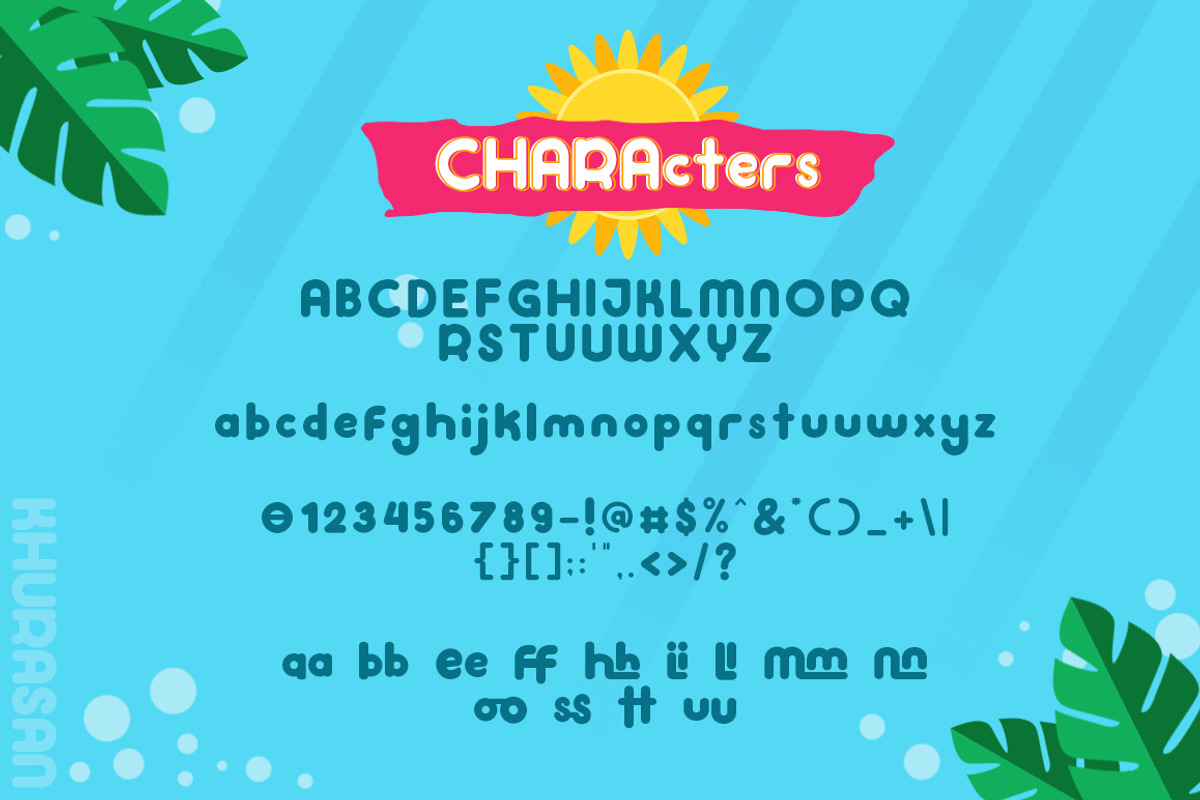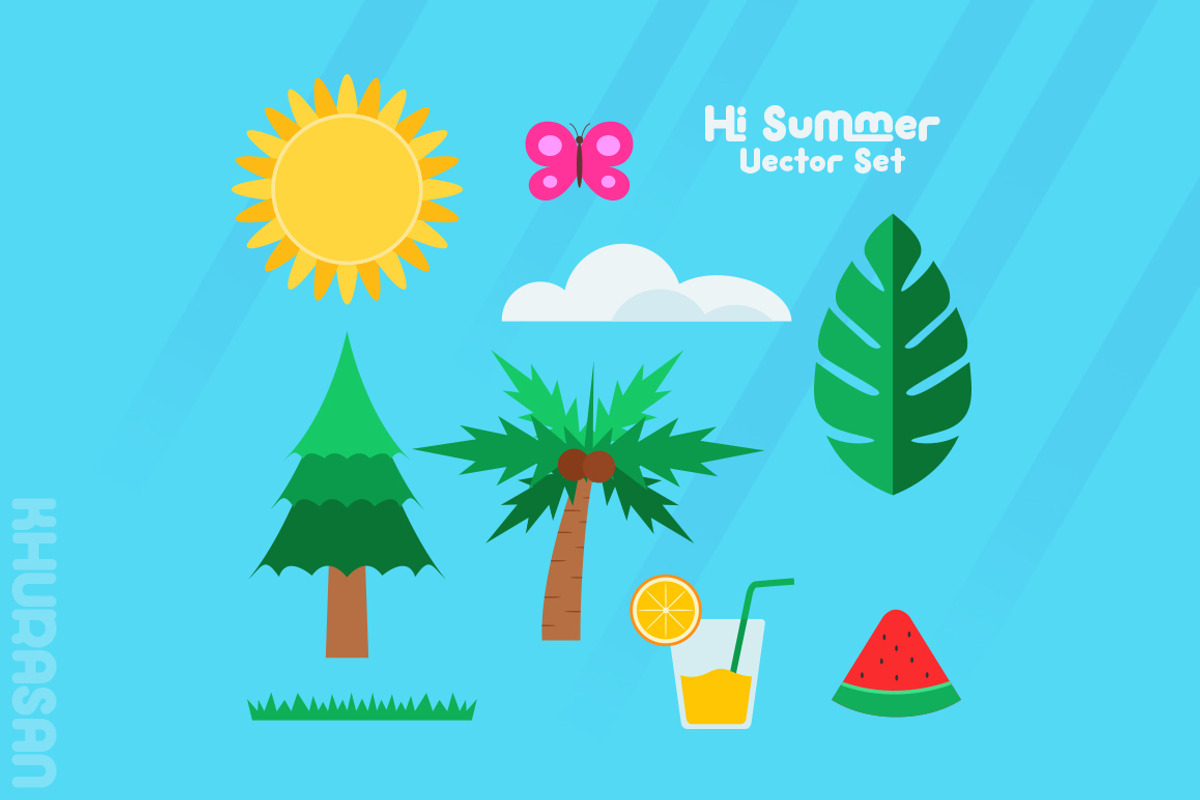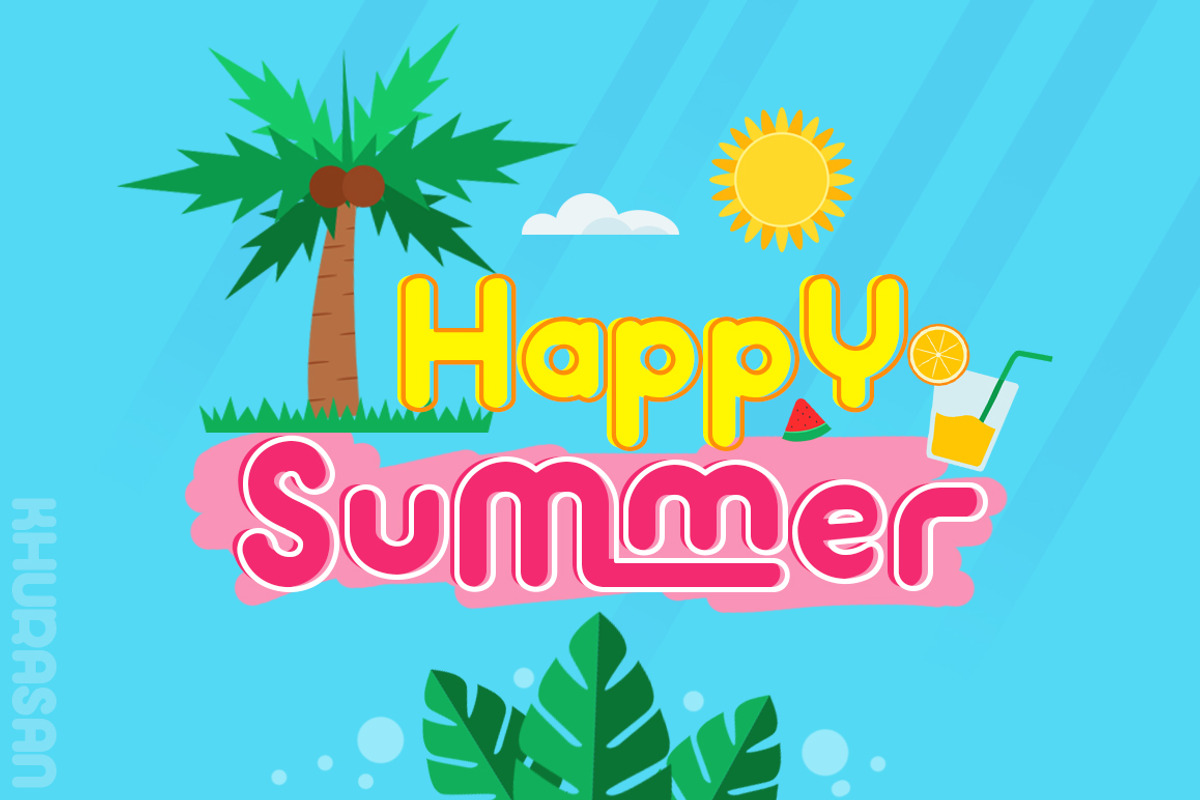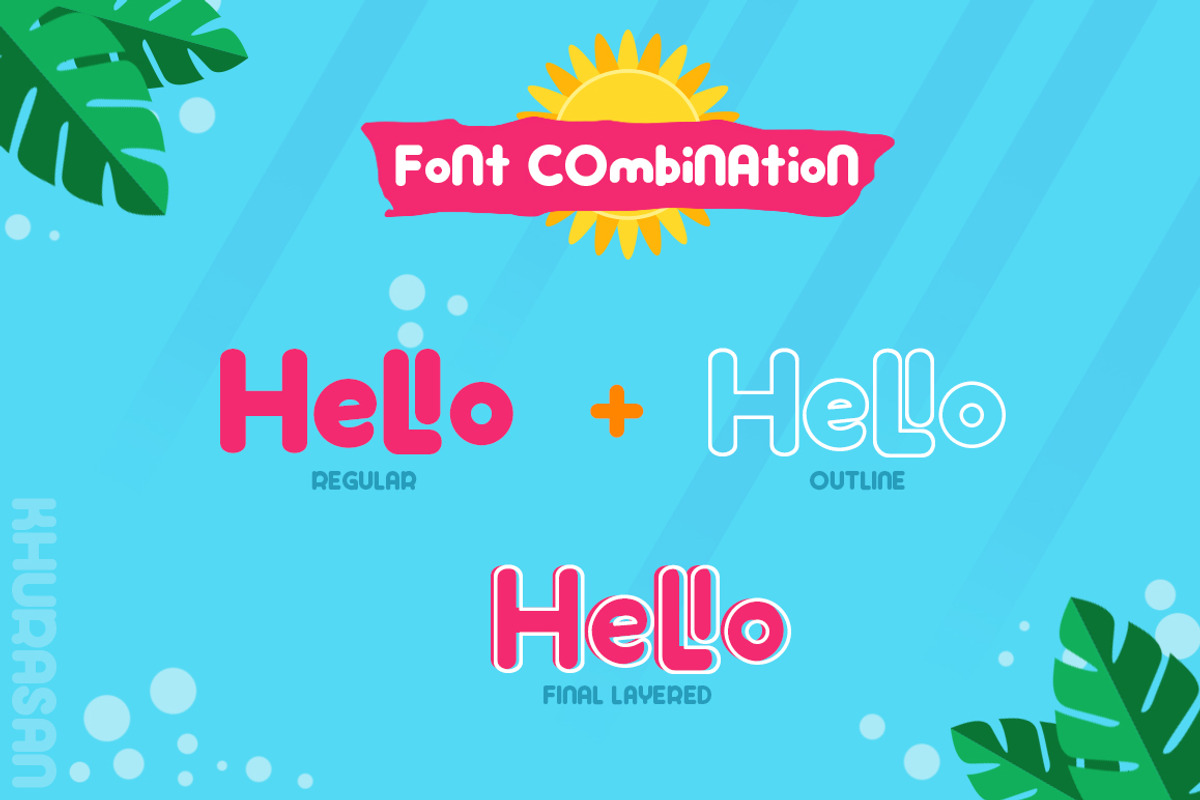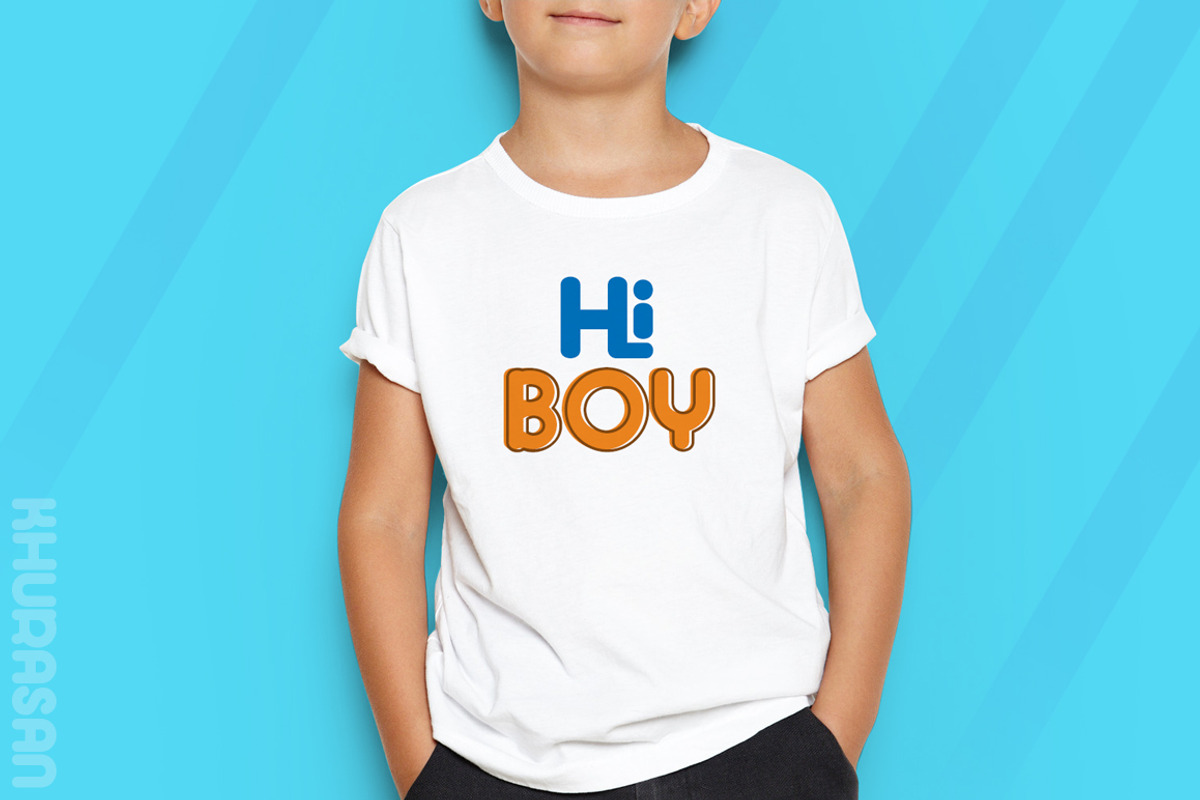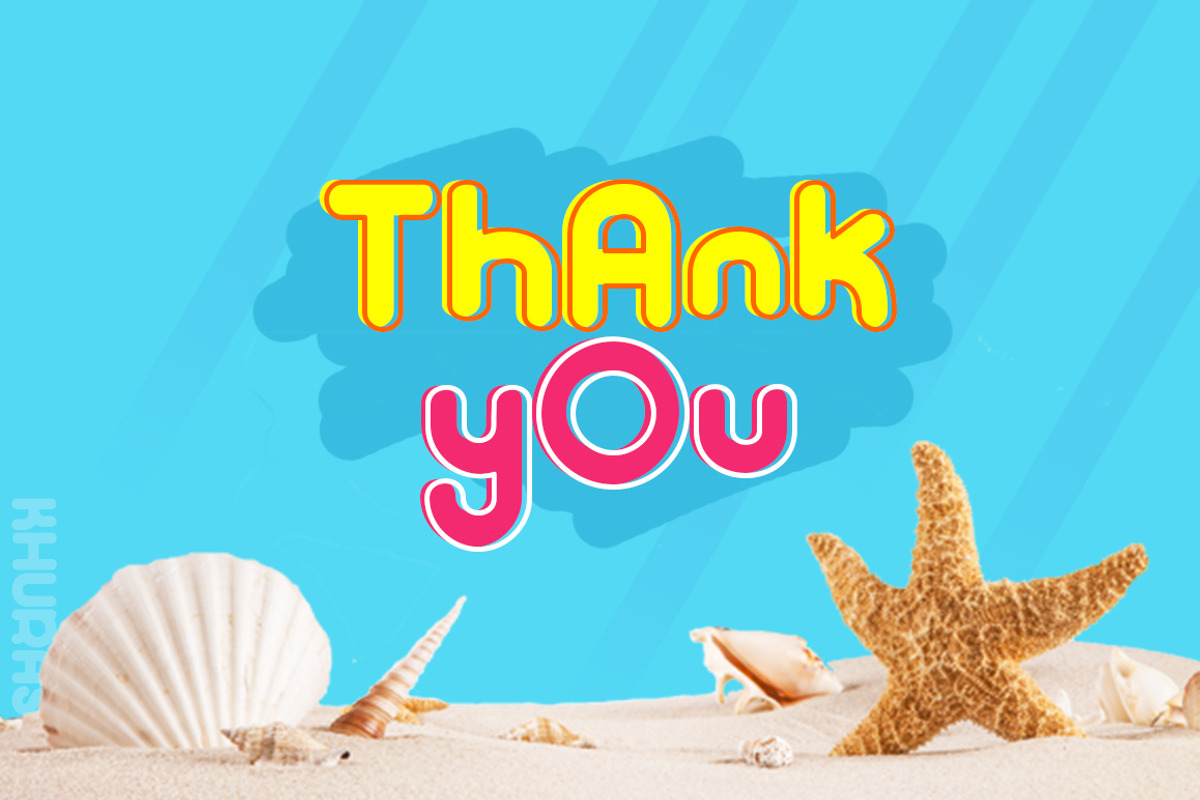
Hi Summer Layered Font
Introducing, Hi Summer font a layered typeface with cheerful theme for your fun project and awesome character with 2 different style, regular and outline. Hi Summer font used with layers method. Hi Summer font suitable for logo, branding, greeting card, poster and any design that you create.